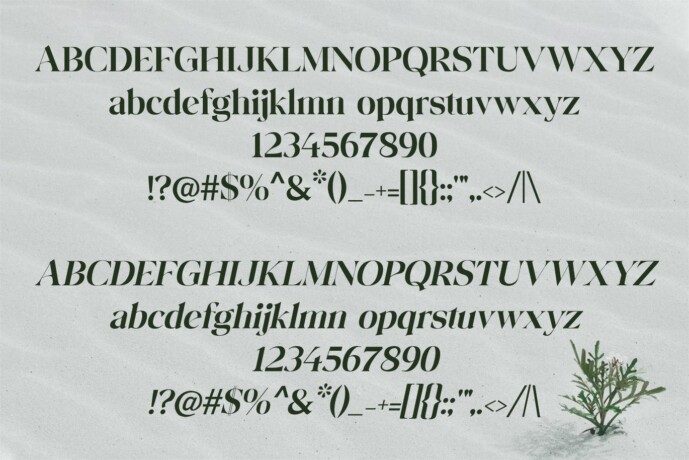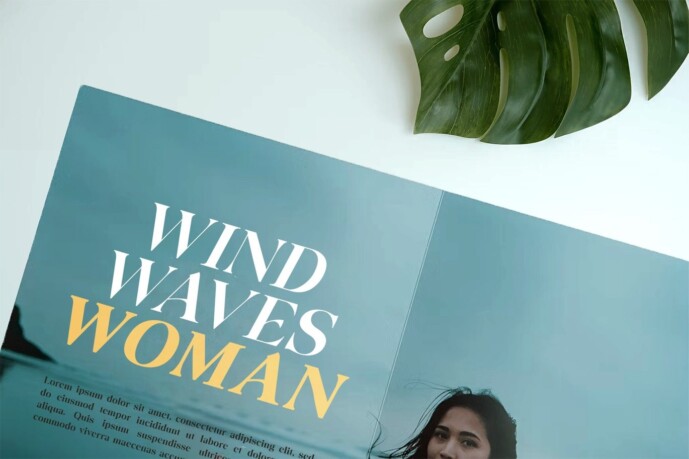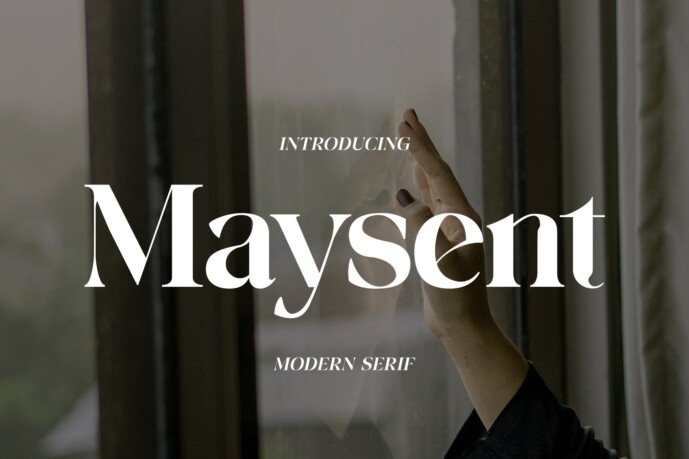
Maysent Font Family
Designer: hardseems
Maysent Font: A serif font with a sleek, modern, glyphic serif style, ideal for branding, copywriting, and headlines.